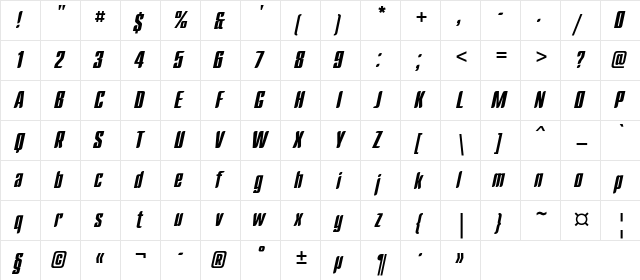
DaggerC Regular Font Preview
DaggerC Regular
Design Context for DaggerC Typeface
DaggerC takes a measured approach to typography — its balanced proportions and neutral character make it a reliable workhorse for both digital and print work.
Pro Tip: Use DaggerC in both headline and body roles to test its range before committing to a single application.